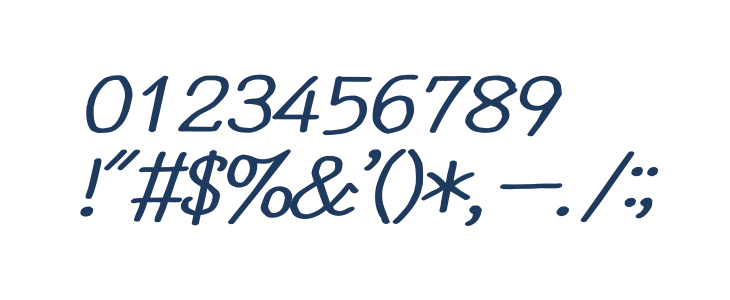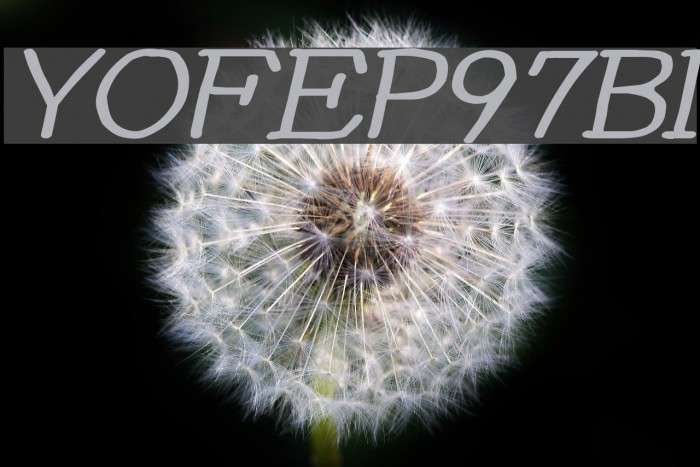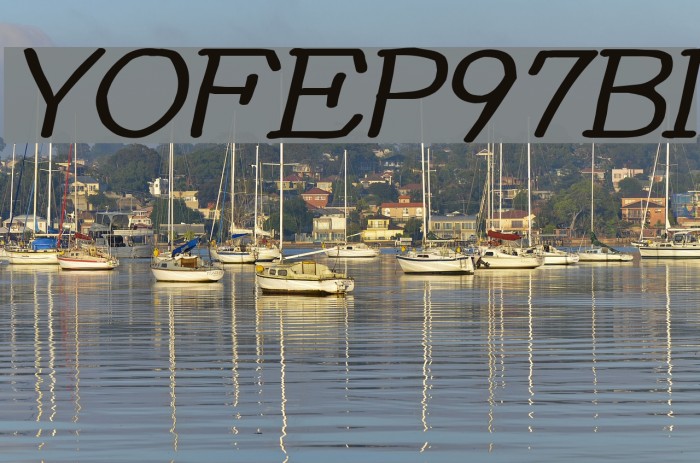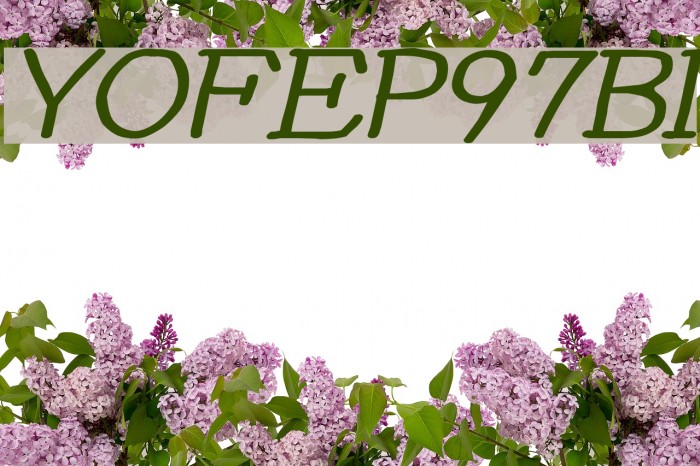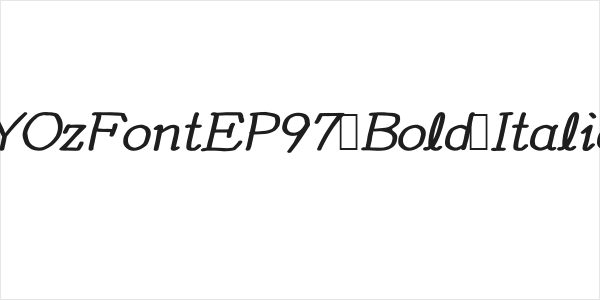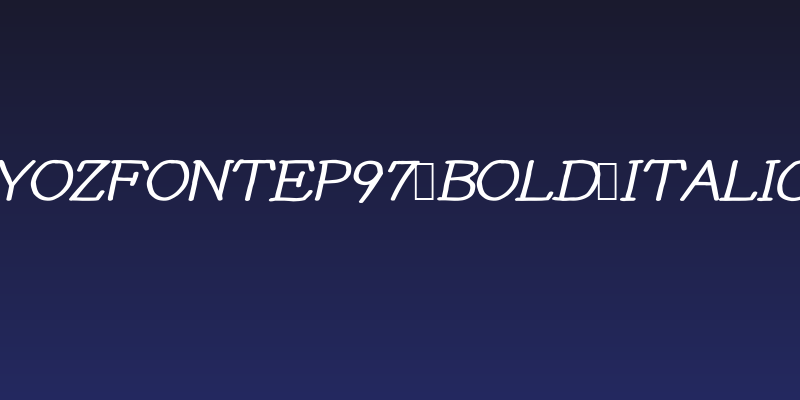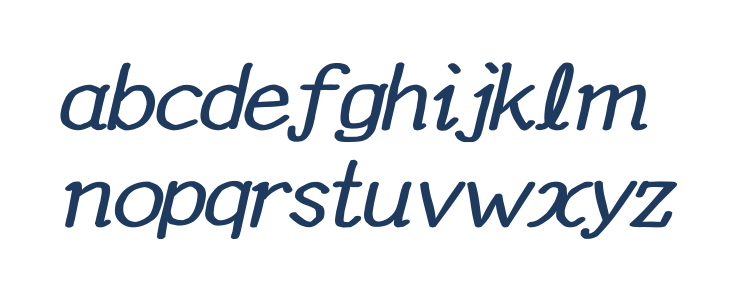
YOzFontEP97 Bold Italic Font
YOzFontEP97 Bold Italic Description
This font features a bold and italic style, characterized by its dynamic and flowing letterforms. The uppercase letters are elegantly slanted, giving a sense of movement and sophistication. The lowercase letters maintain a consistent slant, with smooth curves and a slightly wider stance, enhancing readability. Numbers are bold and clear, matching the overall style of the alphabet. Special characters are well-integrated, maintaining the font's cohesive appearance. The font's boldness and italicization make it suitable for impactful and stylish designs.
Use CaseHeadlines, Logos, Invitations
Proposed ProjectsIdeal for branding, headlines, and stylish invitations.